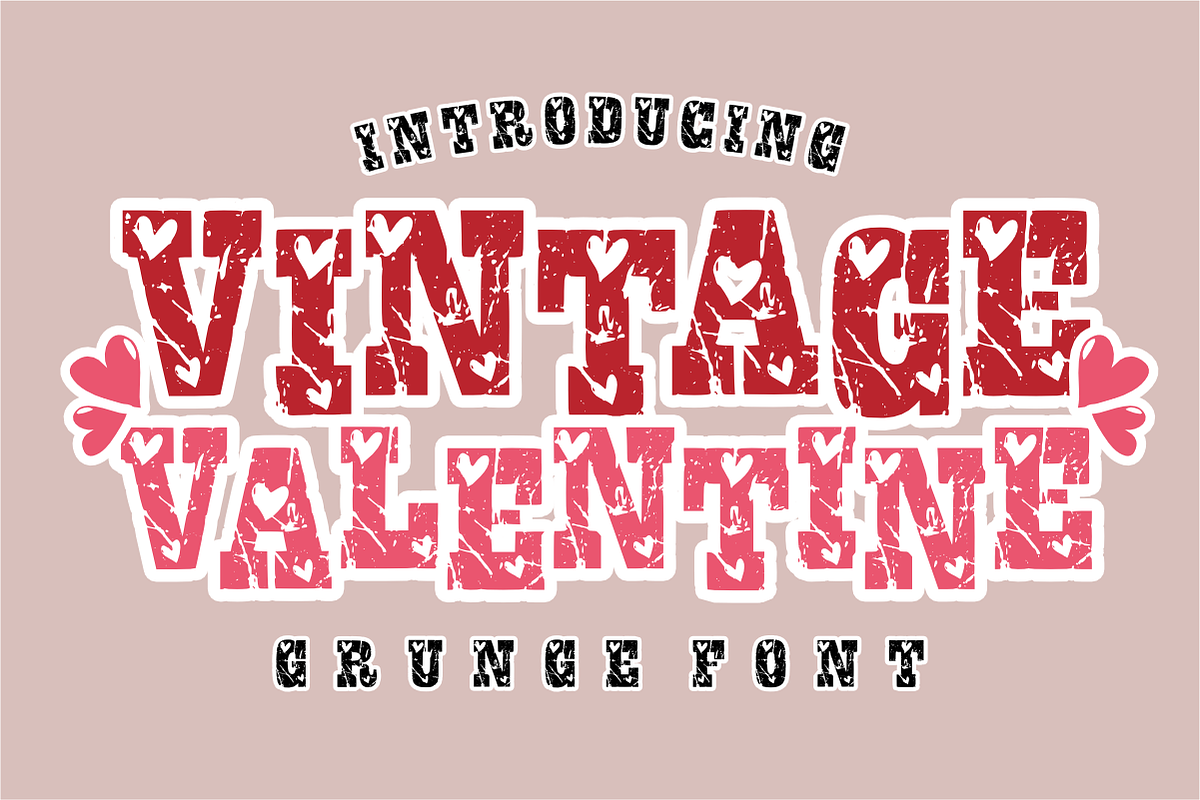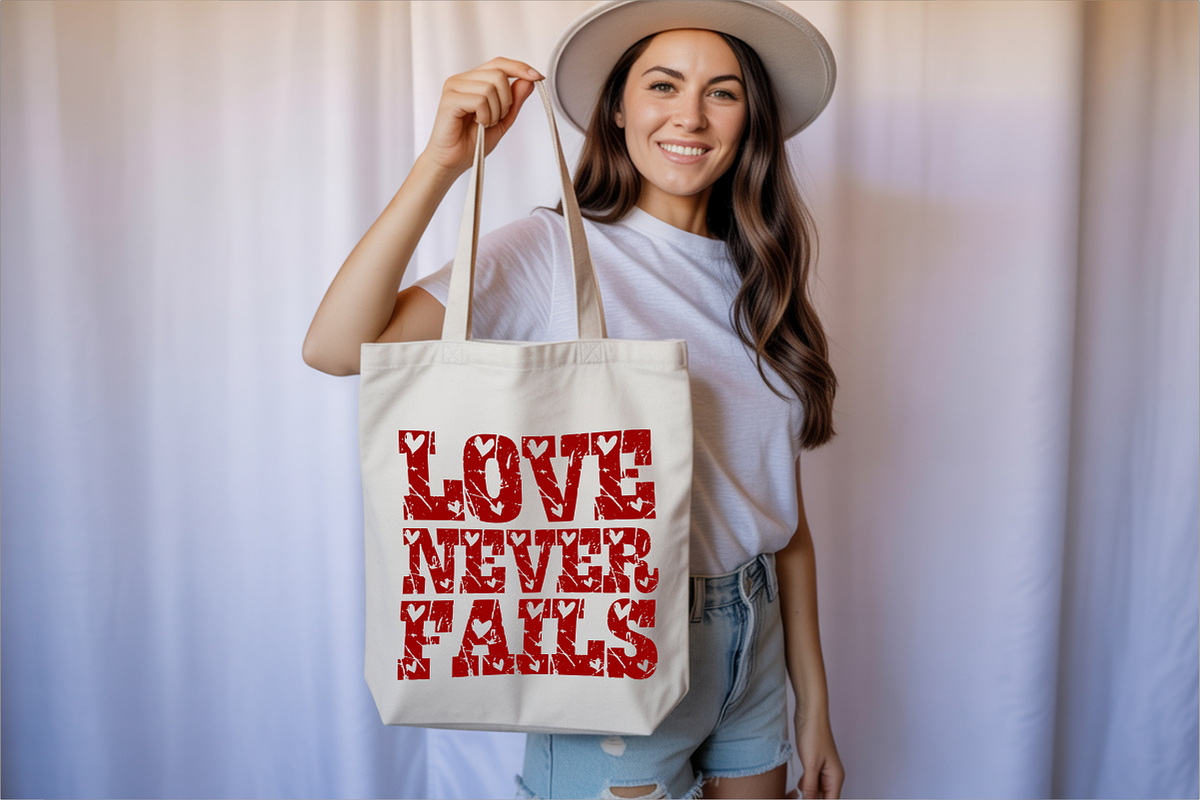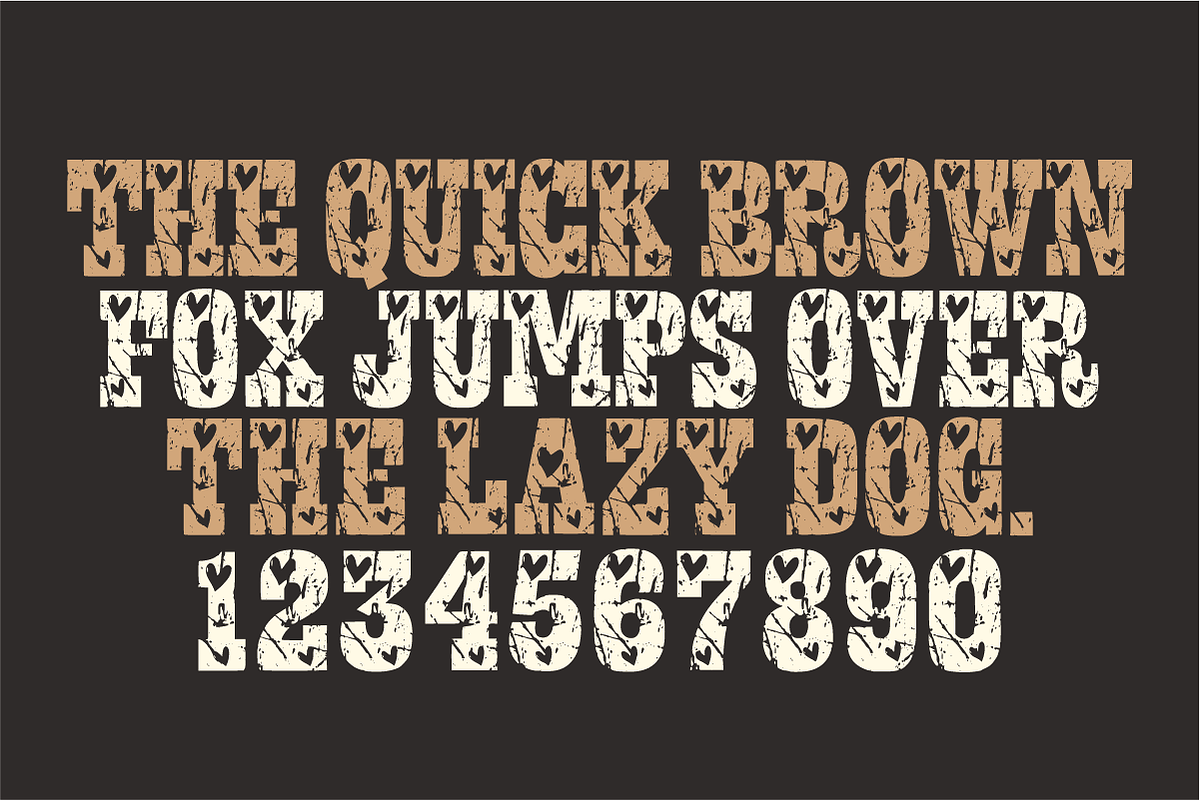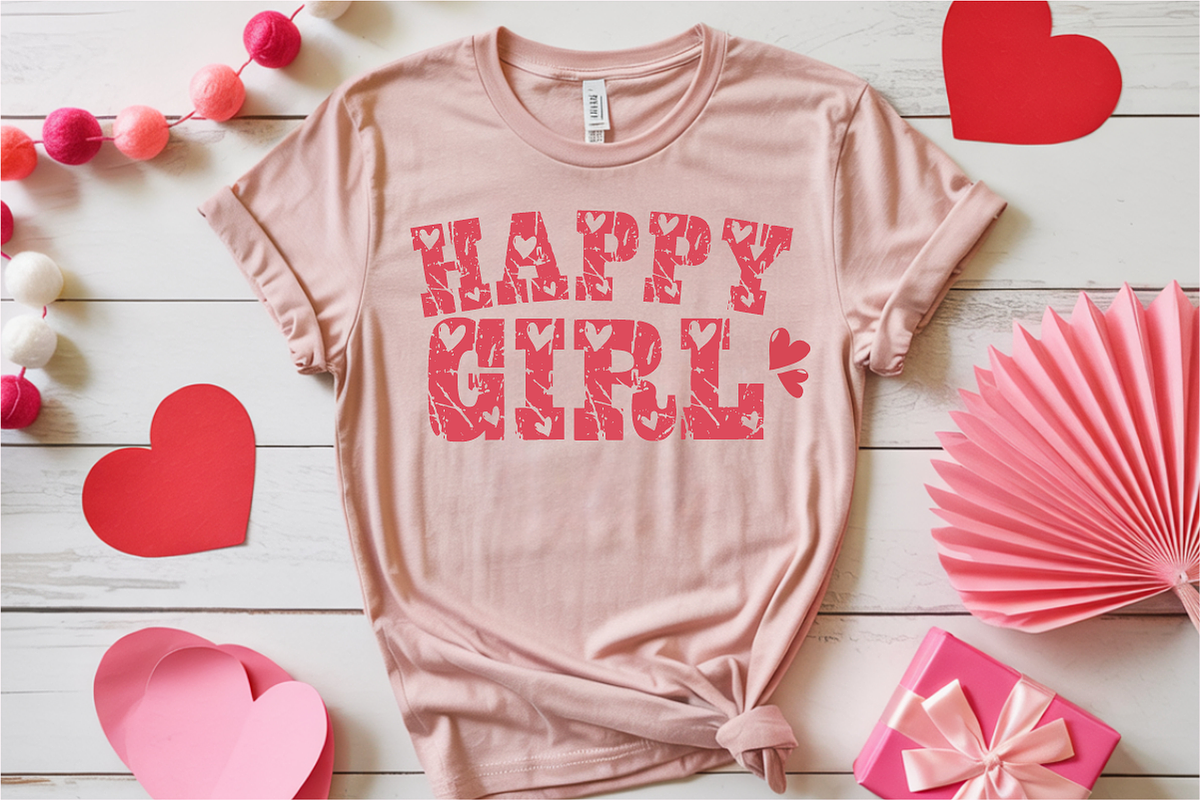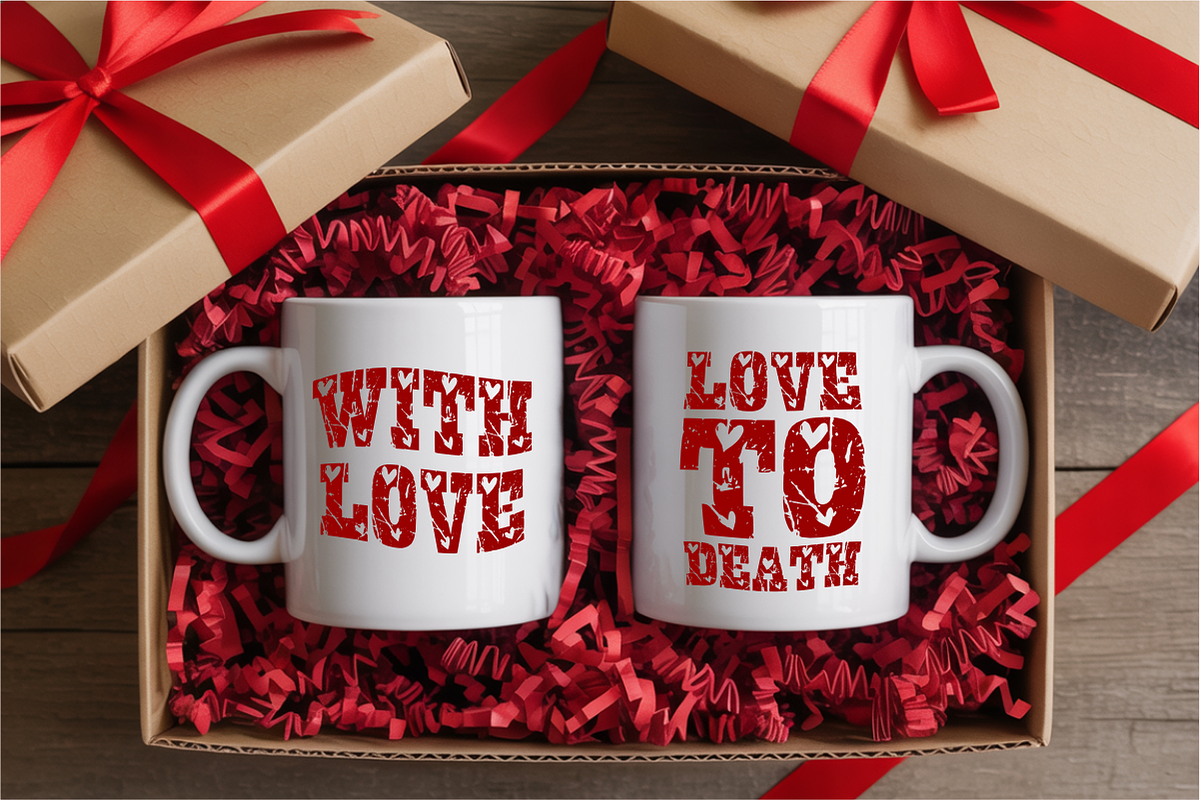
Vintage Valentine โ Distressed Heart
Vintage Valentine โ Distressed Heart & Athletic Display Font ๐๐๏ธ
Where rugged texture meets romantic charm!
Vintage Valentine is a bold, high-impact display font that masterfully combines classic collegiate block lettering with a sweet "heart" motif and a heavy distressed texture. Inspired by vintage sports apparel and romantic retro aesthetics, this font delivers a unique "grunge" look that is both strong and affectionate. It is the perfect solution for designers who want to move away from standard cursive scripts and embrace a more edgy, urban approach to romantic designs.
๐ Why Vintage Valentine is a Must-Have:
Unique Heart-Infused Grunge: Features realistic weathered cracks and embedded heart icons directly in the letterforms for a custom, "lived-in" feel.
Bold Athletic Profile: Based on iconic varsity styles, ensuring your romantic messages are delivered with strength and maximum visibility.
Authentic Retro Vibe: Instantly adds a nostalgic, high-quality vintage aesthetic to any project without the need for additional texture overlays.
๐จ Perfect For:
๐ Edgy Apparel & Streetwear: Create standout graphics for Valentineโs Day t-shirts, oversized hoodies, and retro-style totes.
๐ Alternative Greeting Cards: Perfect for "Love & Grit" themed cards, event invitations, and romantic posters with an attitude.
๐ธ Social Media Branding: Command attention on Instagram, Pinterest, and YouTube with powerful, gritty headlines.
๐ท๏ธ Product Packaging: Ideal for artisanal gift labels, stickers, and branding for handmade products with a vintage soul.
๐ Themed Merchandise: Great for high-energy sports events or school club gear with a festive twist.
Character Set: Strong All-Caps Uppercase Letters (A-Z) featuring decorative heart accents and grunge textures.
Numbers & Symbols: Complete set of numerals (0-9) and essential simple punctuation.